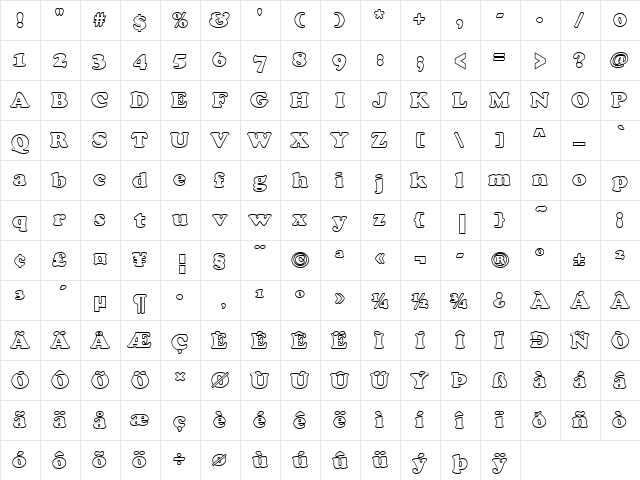
Cooper Becker Black Outline P Regular
Design Context for Cooper Becker Black Outline P Typeface
Cooper Becker Black Outline P is built around its visual character rather than neutral utility — its distinctive forms are designed to make an impression at display sizes.
Font Pairing: Pair with a clean neutral sans-serif for body copy to let Cooper Becker Black Outline P's character lead without overwhelming the composition.
Pro Tip: Treat Cooper Becker Black Outline P as the centrepiece of your typographic hierarchy. One strong heading set in a decorative face can carry an entire layout.